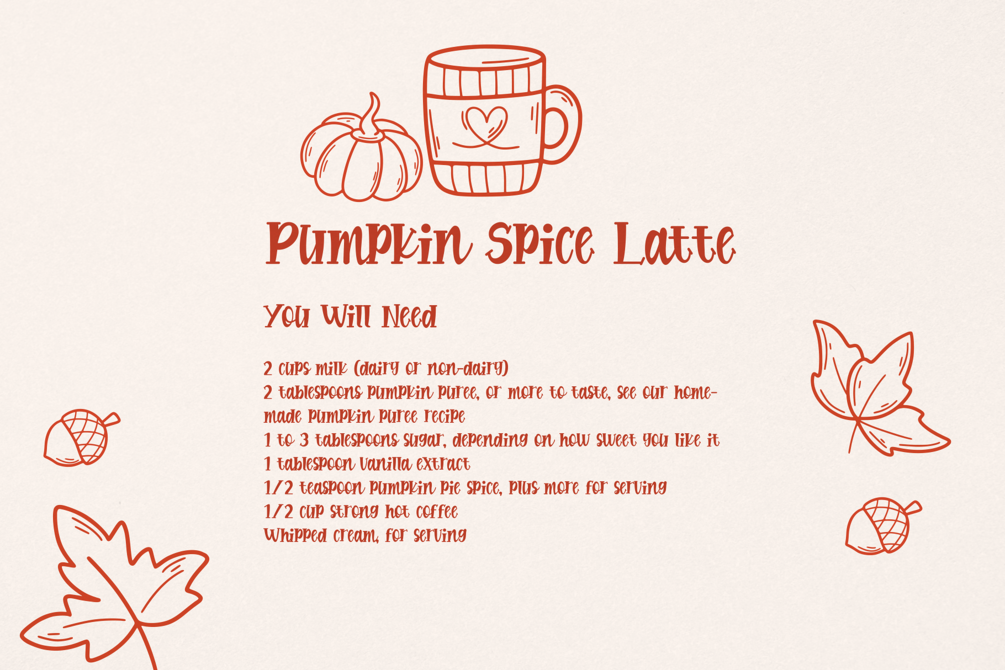
Farmhouse Haystack - Organic Font
Get ready to embrace the wholesome charm of "Farmhouse Haystack," the font that breathes life into your projects with an irresistible touch of rustic elegance.
Inspired by the quaint, sun-kissed charm of organic farmers' markets, this font exudes an adorable and heartwarming appeal. Its handwritten style, with each character lovingly crafted to resemble the strokes of a farmer's hand, captures the essence of wholesome, farm-fresh goodness.
Farmhouse Haystack invites you to infuse your designs with a warm and inviting aura that beckons customers to savor the authentic flavors and natural beauty of your brand. Whether you're labeling artisanal products, designing farm-to-table menus, or creating promotional materials for your local market, this font adds a dash of authenticity and rustic grace, making it the perfect choice for your organic, farm-fresh endeavors.
Let Farmhouse Haystack be the heart and soul of your creative projects, reminding the world that the simple, genuine, and organic way of life is a true treasure to be celebrated.